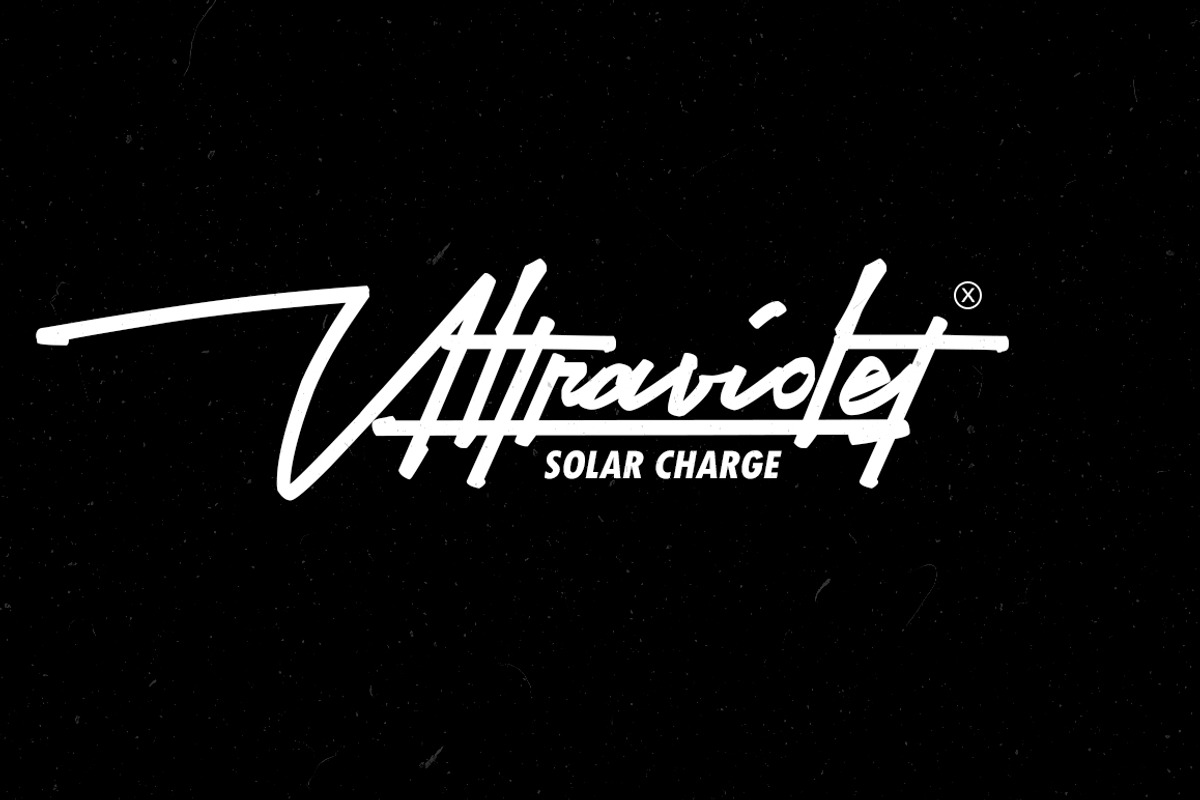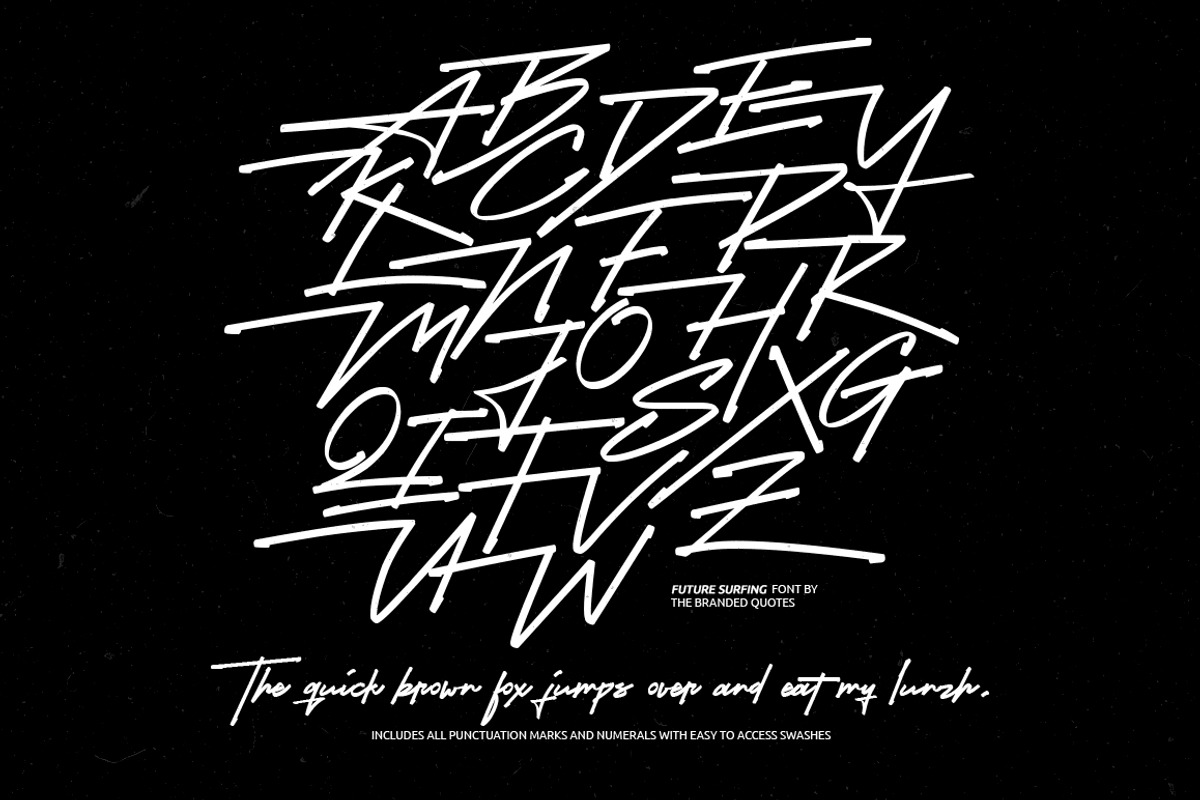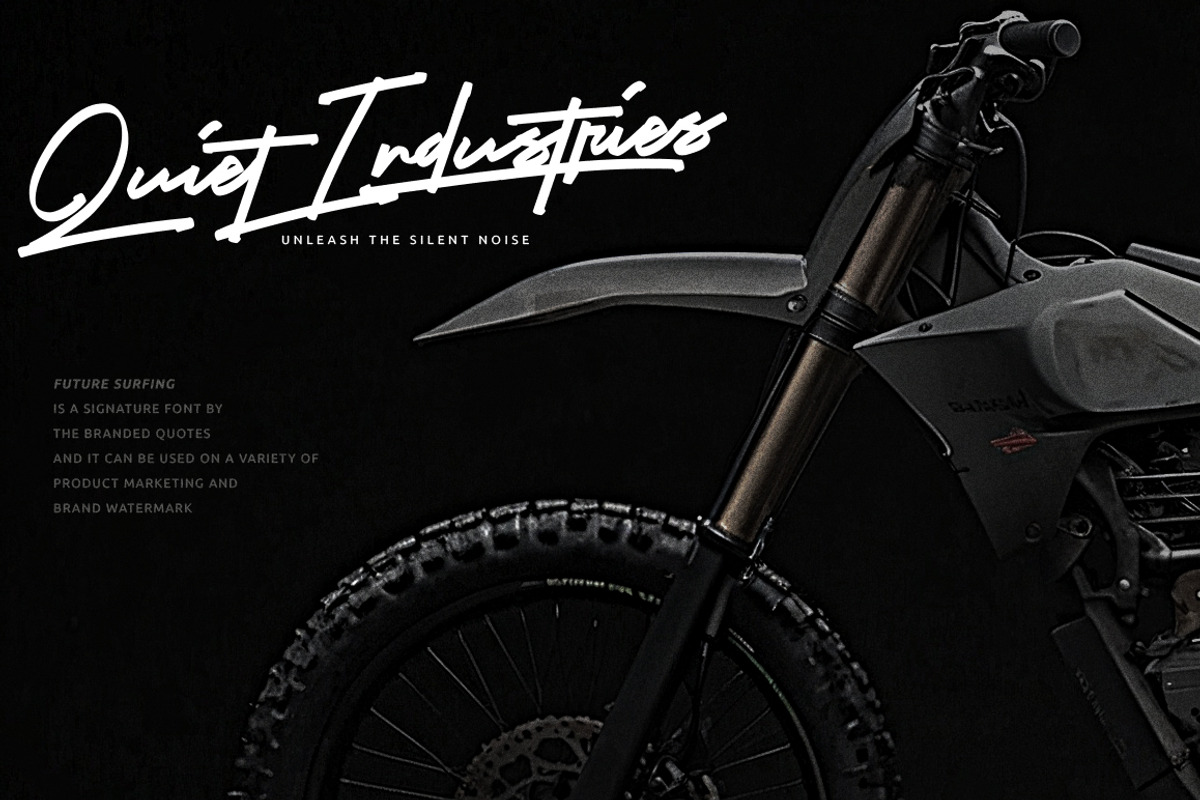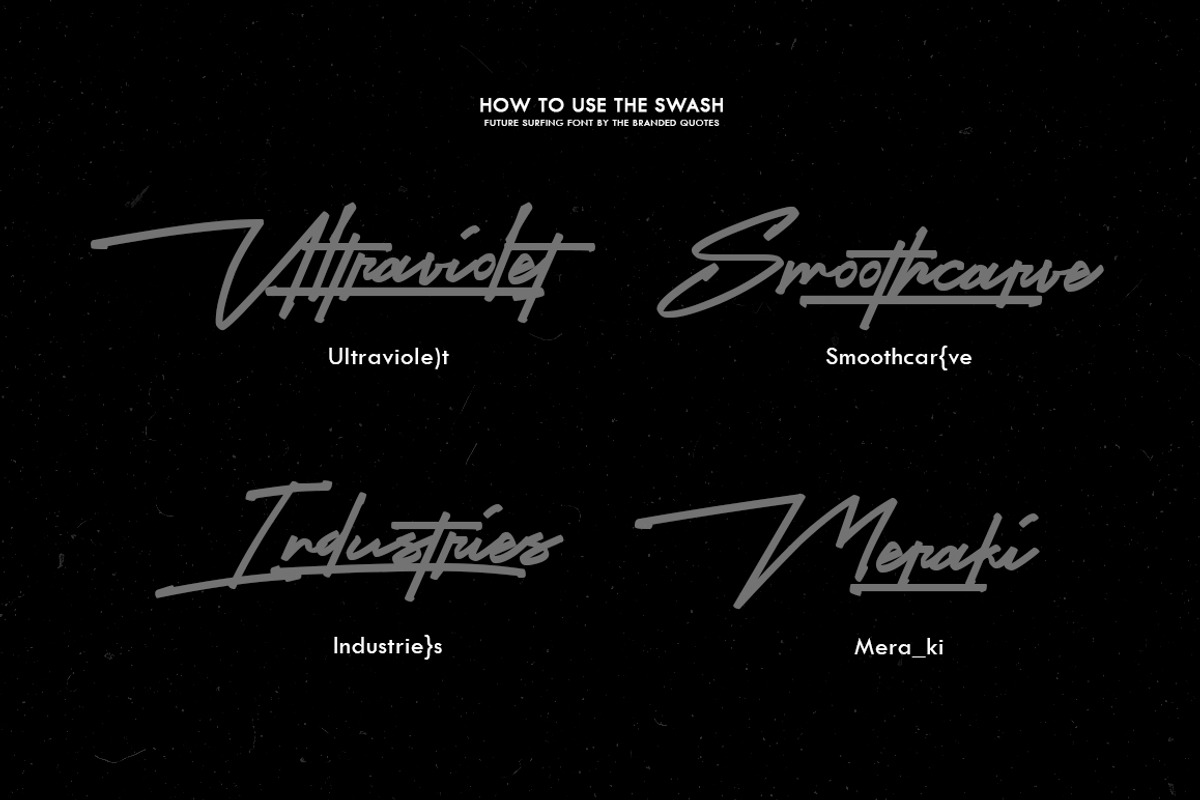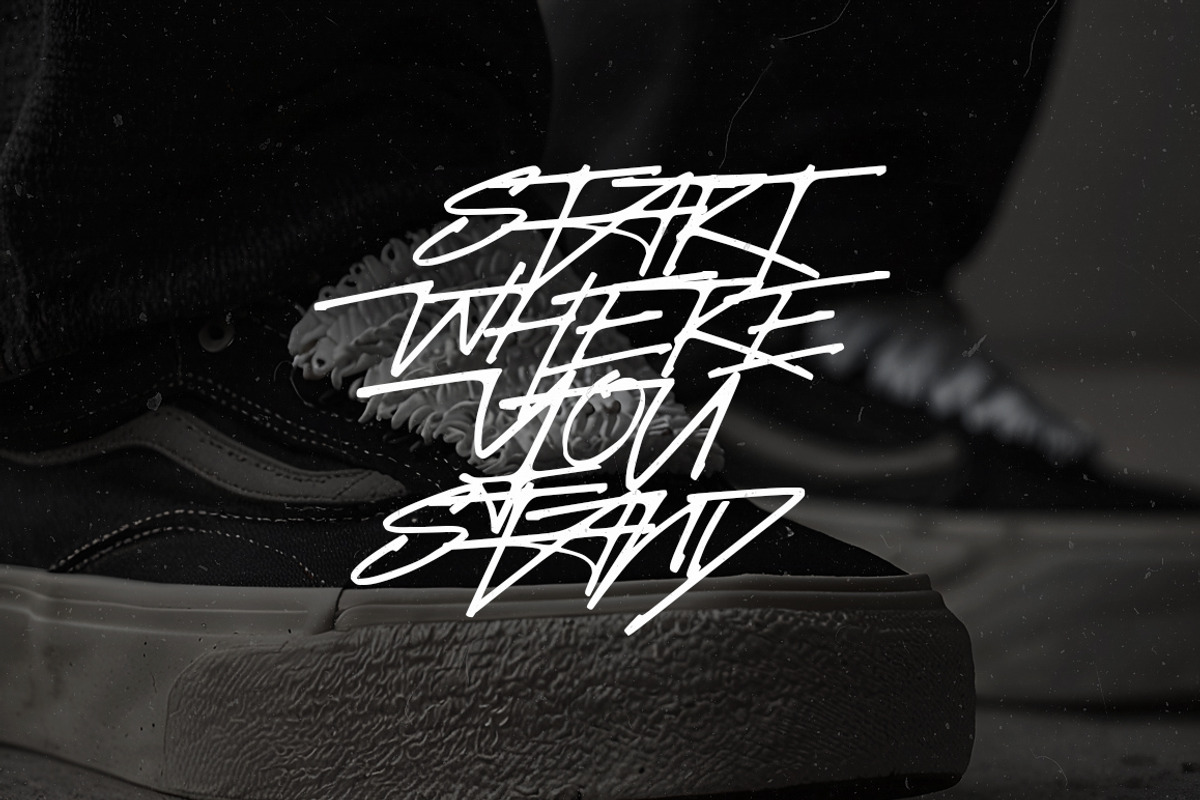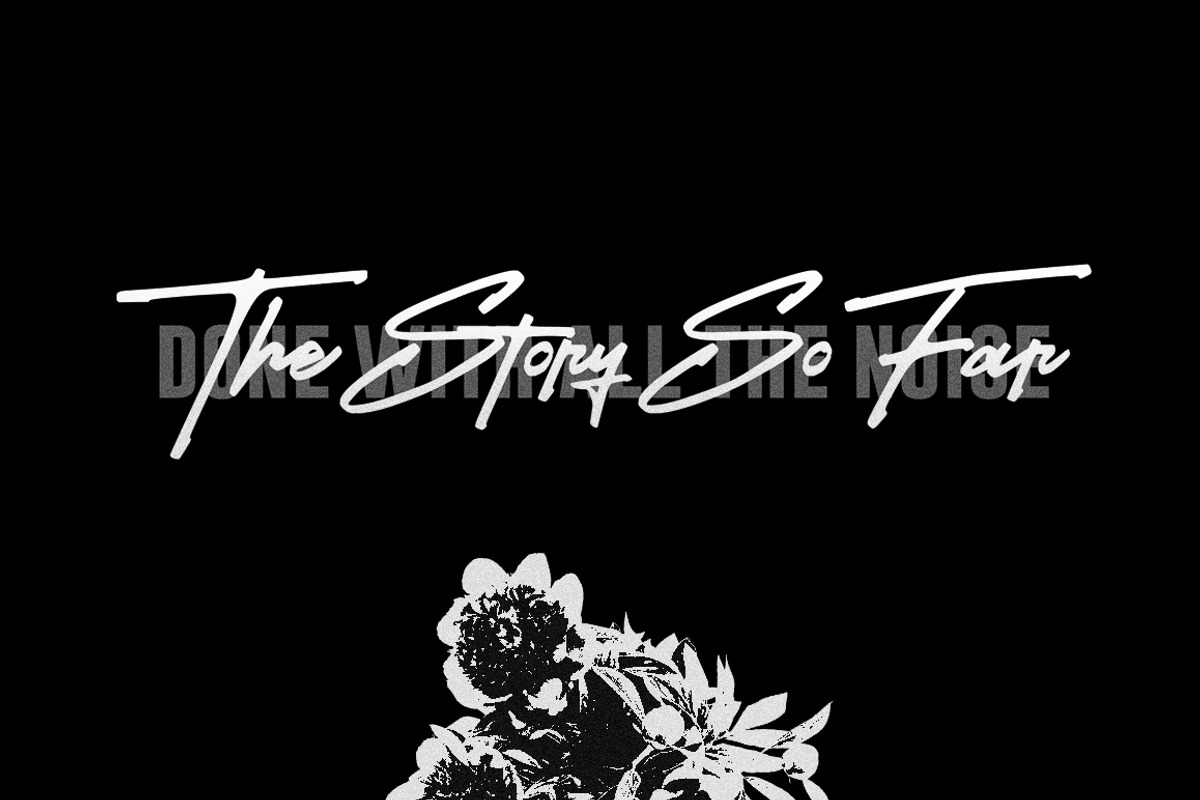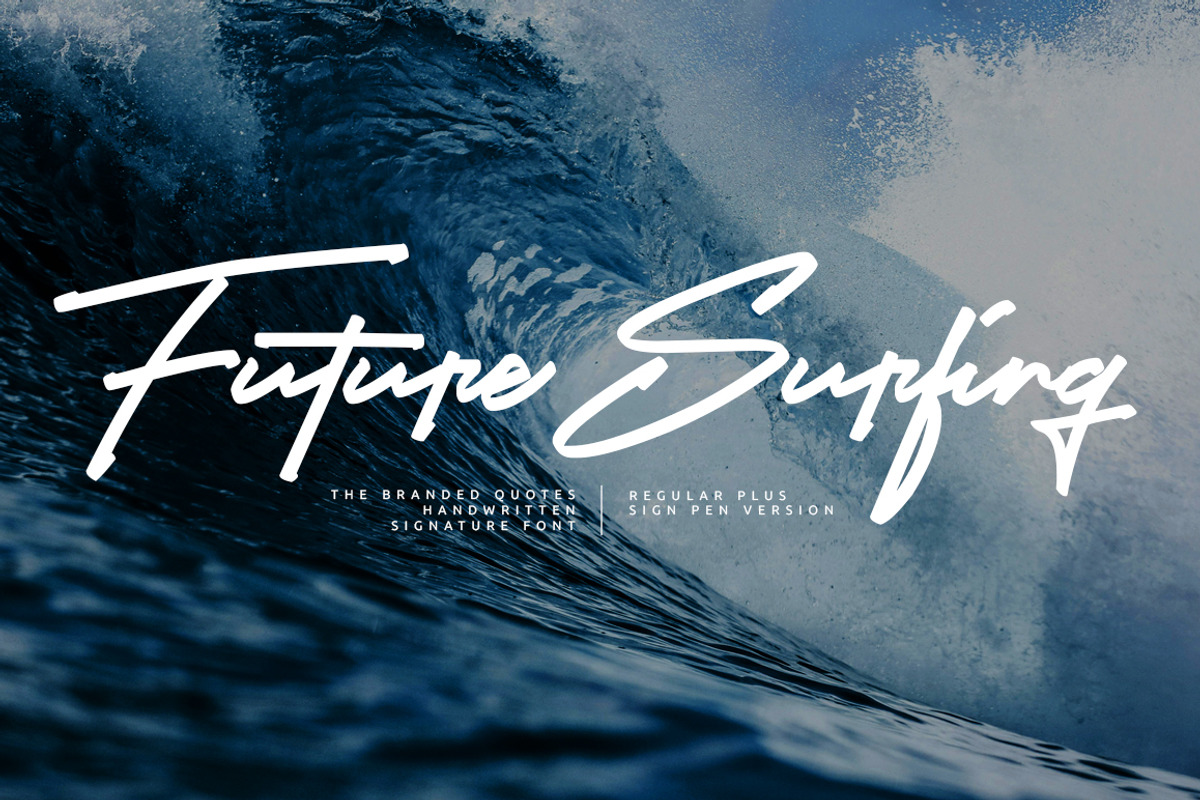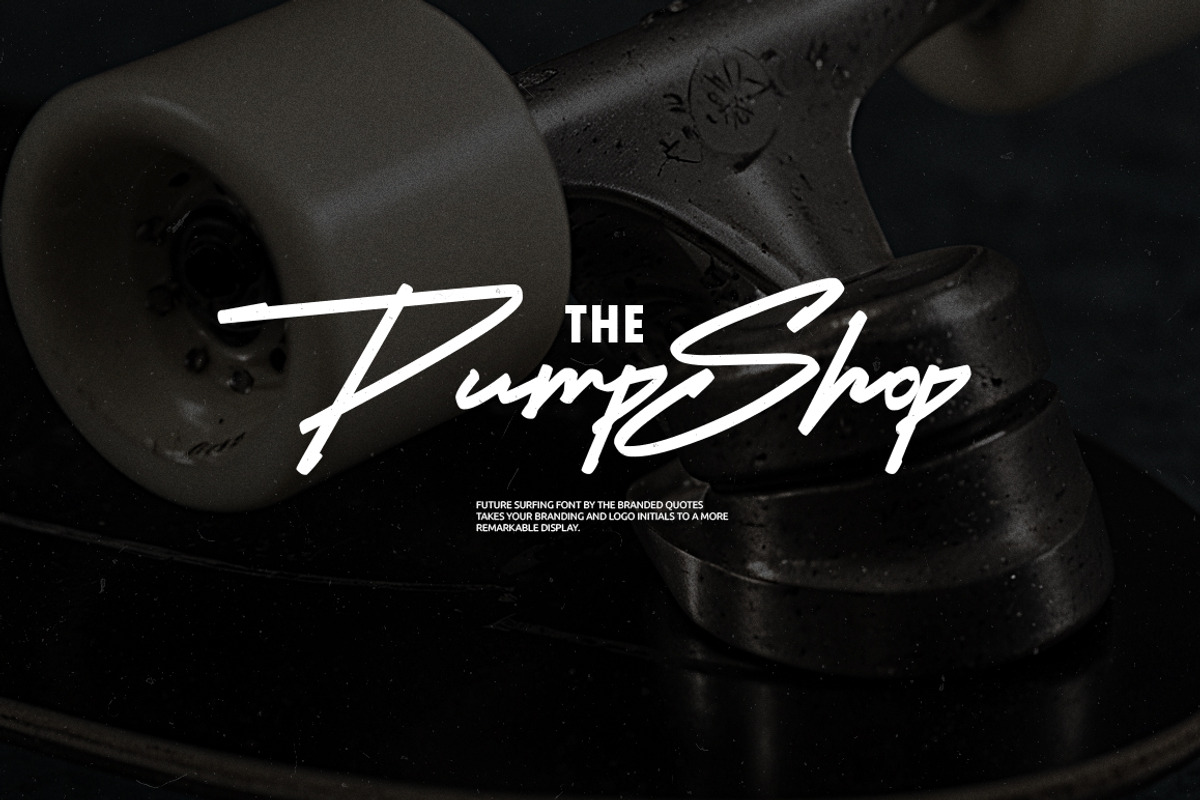
Future Surfing Font
Future Surfing font is heavily influenced by Surfskate and Electric Dirt Bikes. A bold signature-style font that works well with branding identity and logo initials. It has the Future Surfing Sign Pen version that emulates a blotted ink lines.
Try typing this to use the swashes included:
Ultraviole)t
Industrie}s
Smoothcar{ve
Mera_ki